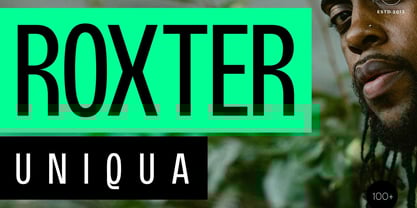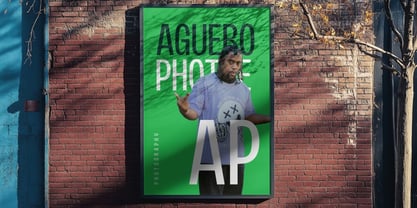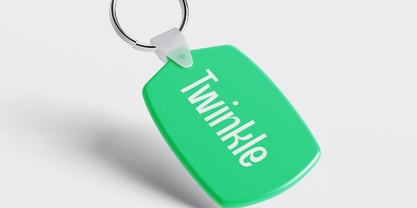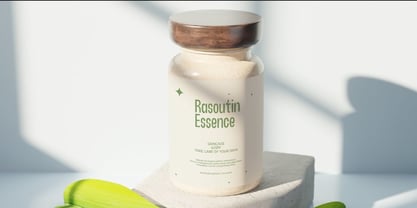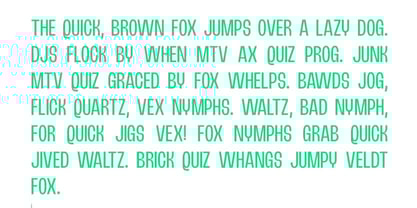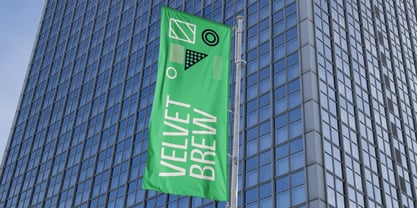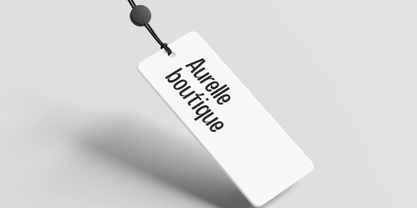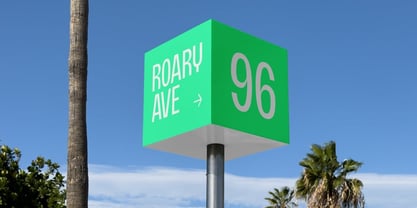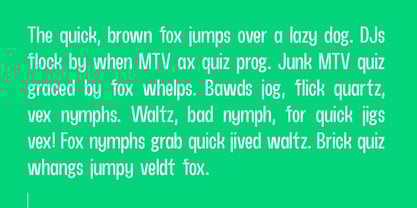
Roxter Display
The Roxter Display Font Family was designed by Ancy George and published by Webhance. Roxter Display contains 2 styles and family package options.
Roxter Display Sans-Serif Font Family is a modern typeface designed for strength, clarity, and impact. With tall shapes, tight spacing, and a clean structure, the Roxter Display Sans-Serif Font Family gives your text bold readability. It works well for posters, branding, packaging, album covers, and digital layouts, ensuring your message is always clear.
Roxter is built for global use. It supports over 100 languages and includes more than 200 glyphs. This makes it a reliable choice for international design projects. From websites and apps to printed marketing materials, the Roxter Display Sans-Serif Font Family adapts smoothly across print and screen.